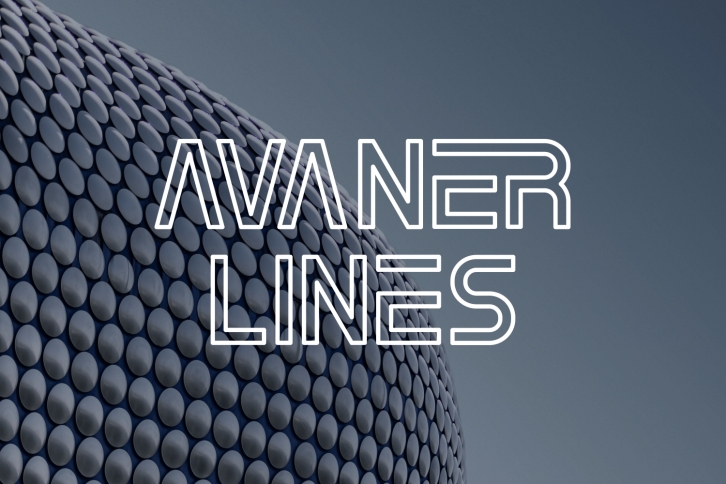
Avaner Lines is a strong and dynamic display font. No matter the topic, this font will be an incredible asset to your fonts’ library, as it has the potential to elevate any creation.